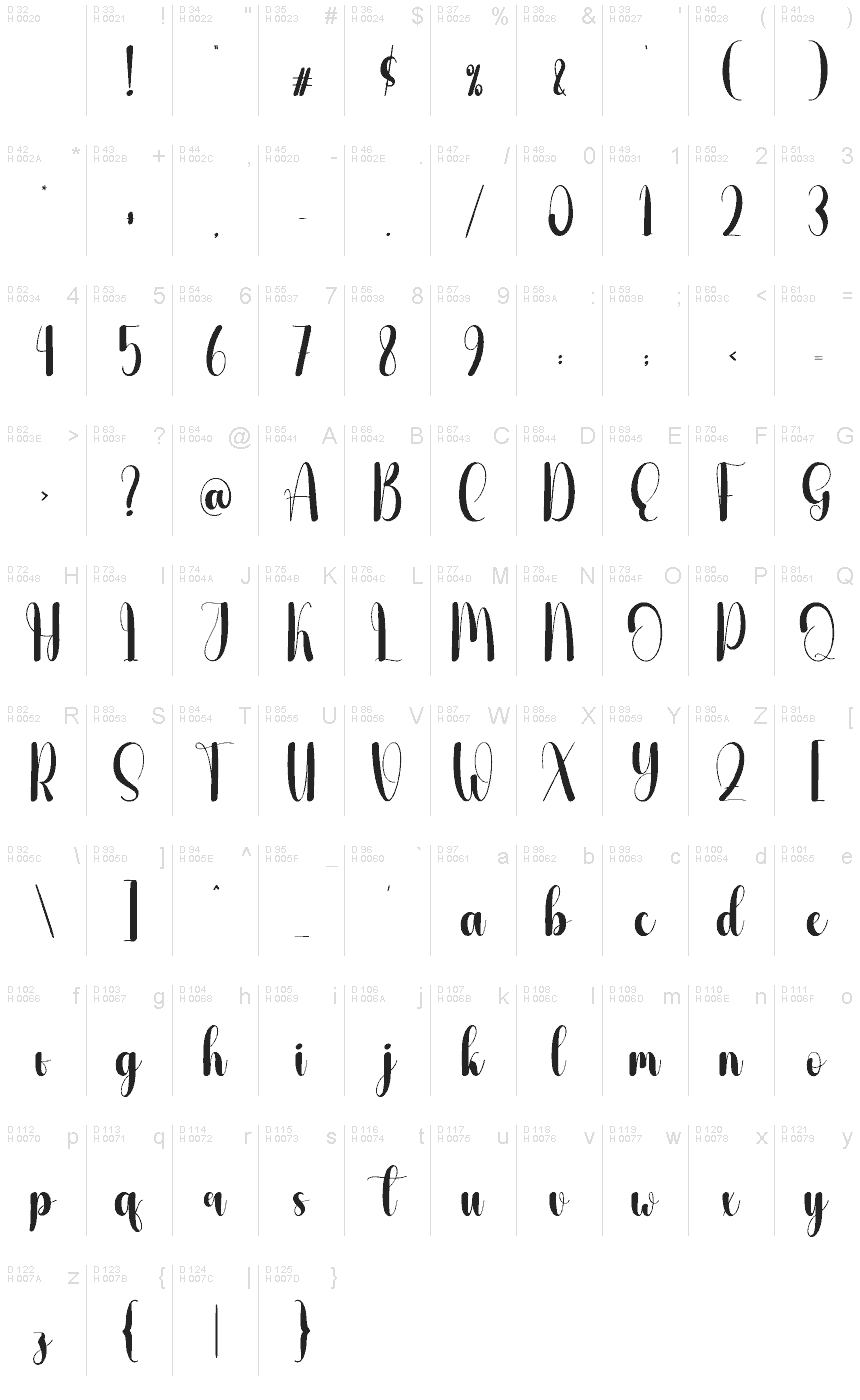
Highligher
Highlighter font designed by Andi Moz is an elegant free calligraphy font with a condensed body and expressive glyphs. Like with a handwriting style, each letter has a natural formation as they get joined to form stylish phrases. The lines follow curvy roads, thus giving every word the most flowing and smoothest appearance possible.